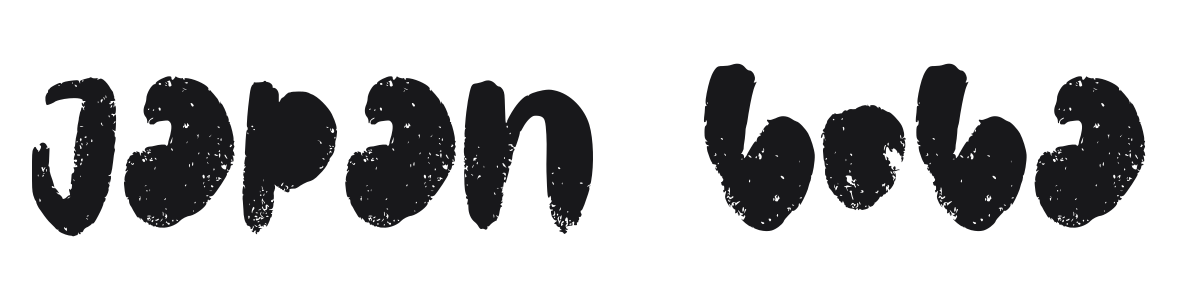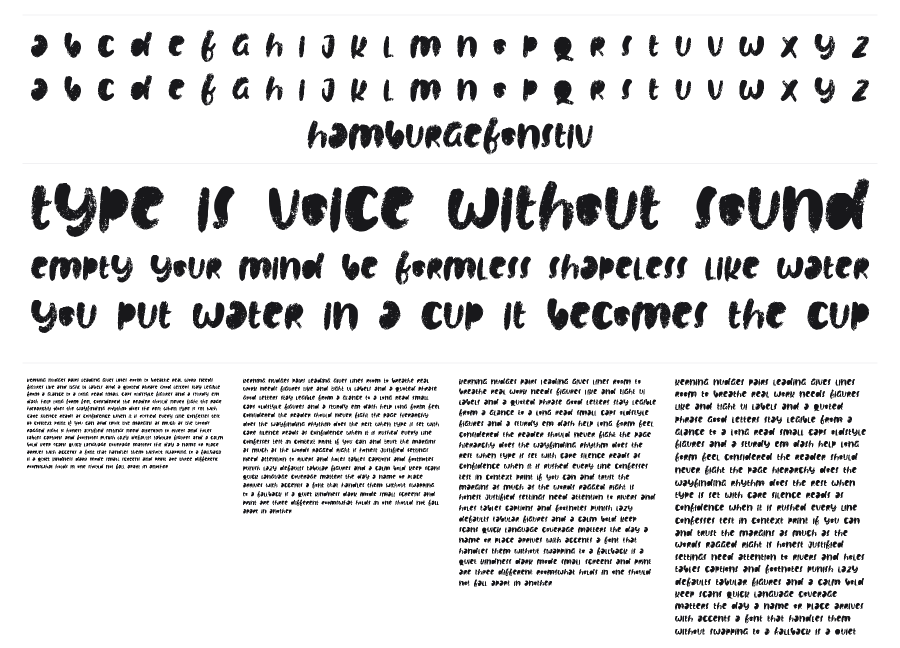
Japan Boba
Japan Boba is a bold, textured brush script with chunky rounded strokes and a raw, hand-painted feel. The rough ink texture and full-bodied letterforms give it an expressive, street-food energy that suits branding with a casual, youthful personality. It draws loosely on East Asian brush aesthetics while staying firmly contemporary.